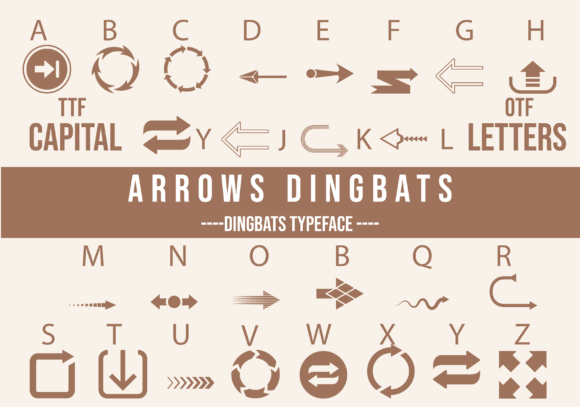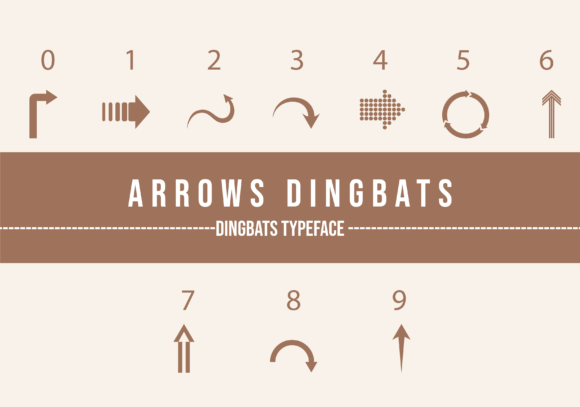
Adding a Touch of Precision to Your Designs
Remember the moment when you’re working on a design and you just can’t find the perfect symbol to convey the message you want to send? Maybe it’s a simple arrow to point to a specific feature or a fun icon to add some personality to your project. We’ve all been there.
That’s where the Arrows Dingbats Font comes in – a fun and useful dingbats font that lets you easily create 62 different arrows to fit any design need you might have. Whether you’re a graphic designer, a digital artist, or a marketing specialist, this font is a must-have in your library. With Arrows Dingbats Font, you can add a touch of precision and personality to your designs with just a few clicks.
Key Features of Arrows Dingbats Font
- Font Family: Arrows Dingbats, a unique dingbat font designed to showcase various arrow symbols.
- Character Set: Includes a comprehensive set of arrow symbols, including various styles, sizes, and orientations, making it a versatile font for designers.
- Unique Characteristics: The font’s distinctive arrow designs can add a touch of creativity and playfulness to any design project, making it an ideal choice for designers seeking to add visual interest.
Review of “Arrows Dingbats Font”
I recently had the chance to work with the “Arrows Dingbats Font” and I have to say, it’s a mixed bag. Let’s start with the good stuff ✨. The font does a great job of providing a range of arrow and symbol characters that can add a touch of whimsy to your designs. I particularly liked the variety of arrow styles and the way they can be used to create a sense of movement and energy in your work.
Another strength of the font is its versatility. It can be used in a wide range of contexts, from logos and branding to editorial design and packaging. The font also works well in both digital and print applications, making it a great choice for designers who need to adapt their work to different mediums.
- The font could benefit from a more extensive character set. While the arrow and symbol characters are great, the font is lacking in terms of basic letterforms and punctuation.
- The font can be quite busy and overwhelming in large blocks of text. This can make it difficult to read and may require designers to use it sparingly.
- The font may not be the best choice for body text or long passages of text due to its decorative nature.
Overall, I think the “Arrows Dingbats Font” is a great addition to any designer’s toolkit. While it has some limitations, its unique characters and versatility make it a great choice for designers who want to add a touch of personality to their work. Just be mindful of its limitations and use it in the right context to get the most out of it.
Use Arrows Dingbats Font to add visual interest to your designs, such as:
- Highlighting important text or headings.
- Creating arrows or icons to point to specific elements.
- Adding a playful touch to your branding or marketing materials.
Remember to experiment with different font sizes, colors, and combinations to get the most out of this versatile font.